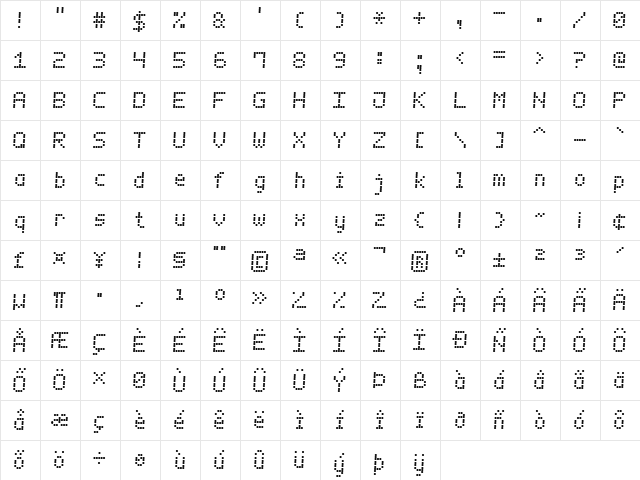
LED Counter 7 Italic
Design Context for LED Counter 7 Typeface
LED Counter 7 takes a measured approach to typography — its balanced proportions and neutral character make it a reliable workhorse for both digital and print work. The slanted form adds forward momentum and visual energy.
Pro Tip: Use LED Counter 7 for emphasis, pull quotes, and subheadings where its slanted energy can add rhythm to the layout.